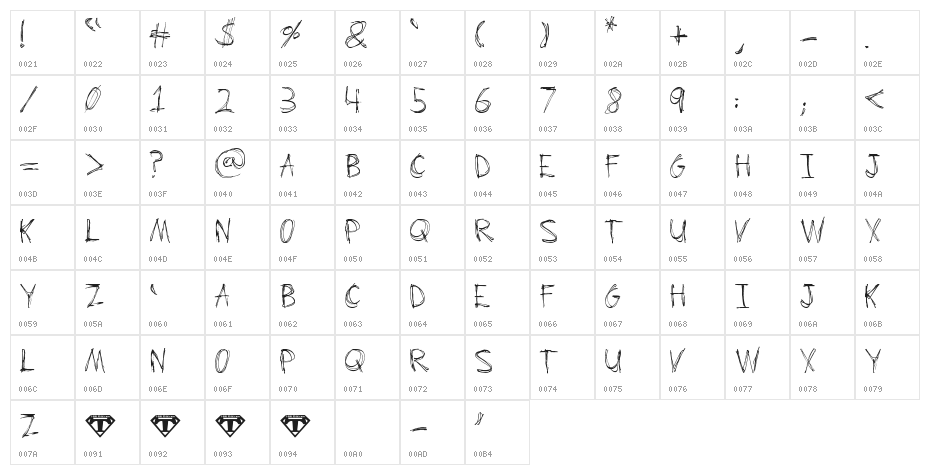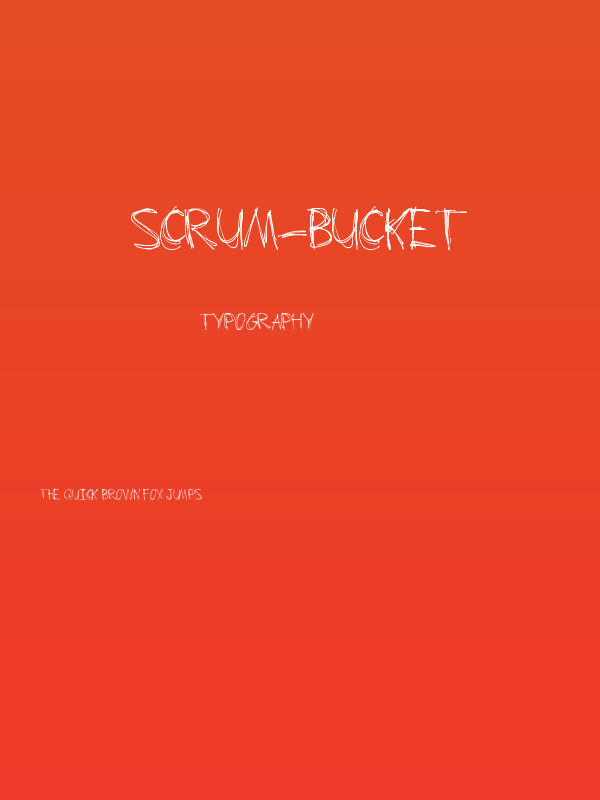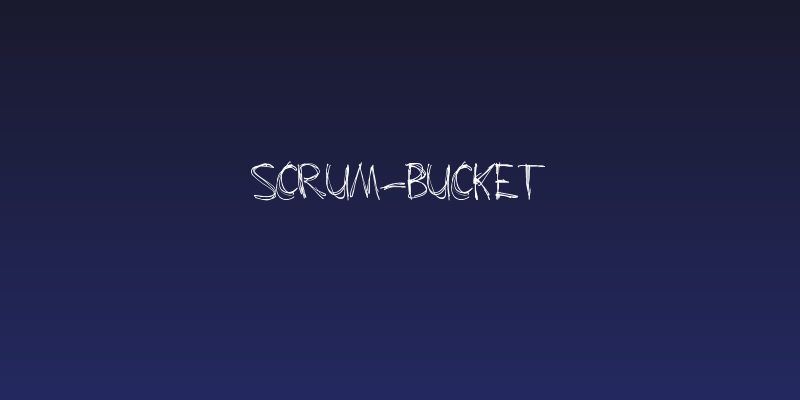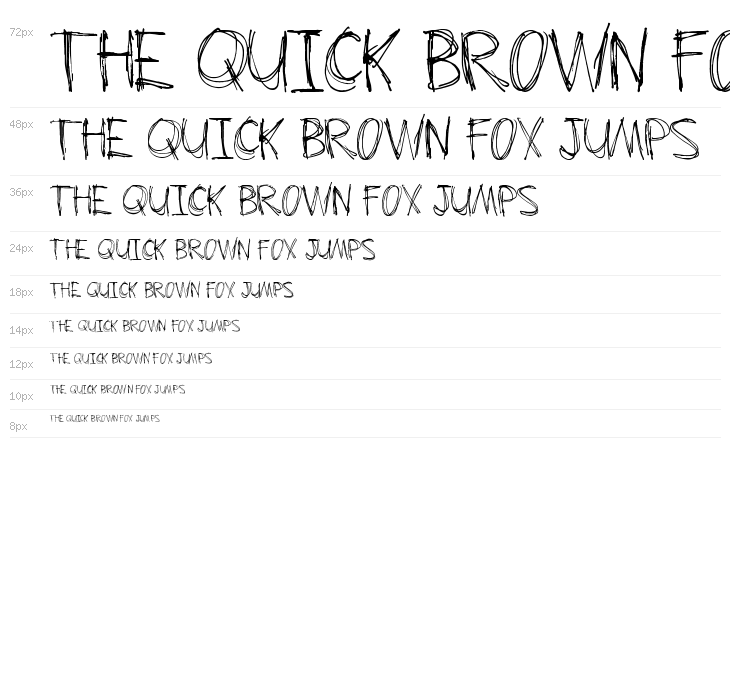
Scrum-Bucket Font
Scrum-Bucket Description
This font features a dynamic and energetic style, characterized by its sketch-like, hand-drawn appearance. The letters are irregular and have a playful, chaotic feel, with strokes that vary in thickness, giving it a raw and expressive look. The uppercase and lowercase letters maintain a consistent style, with exaggerated curves and angles that add to its unique personality. Numbers and special characters follow the same design principles, ensuring a cohesive look across all glyphs. This font is ideal for projects that require a bold, artistic touch.
| Proposed Projects | Ideal for artistic projects, album covers, posters, and creative branding. |